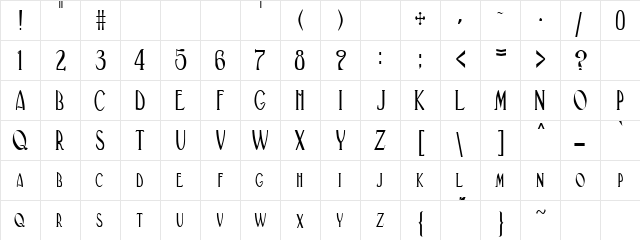
GatsbyCondensed Regular Font Preview
GatsbyCondensed Regular
Design Context for GatsbyCondensed Typeface
GatsbyCondensed takes a measured approach to typography — its balanced proportions and neutral character make it a reliable workhorse for both digital and print work. The condensed width makes it efficient for tight spaces without sacrificing legibility.